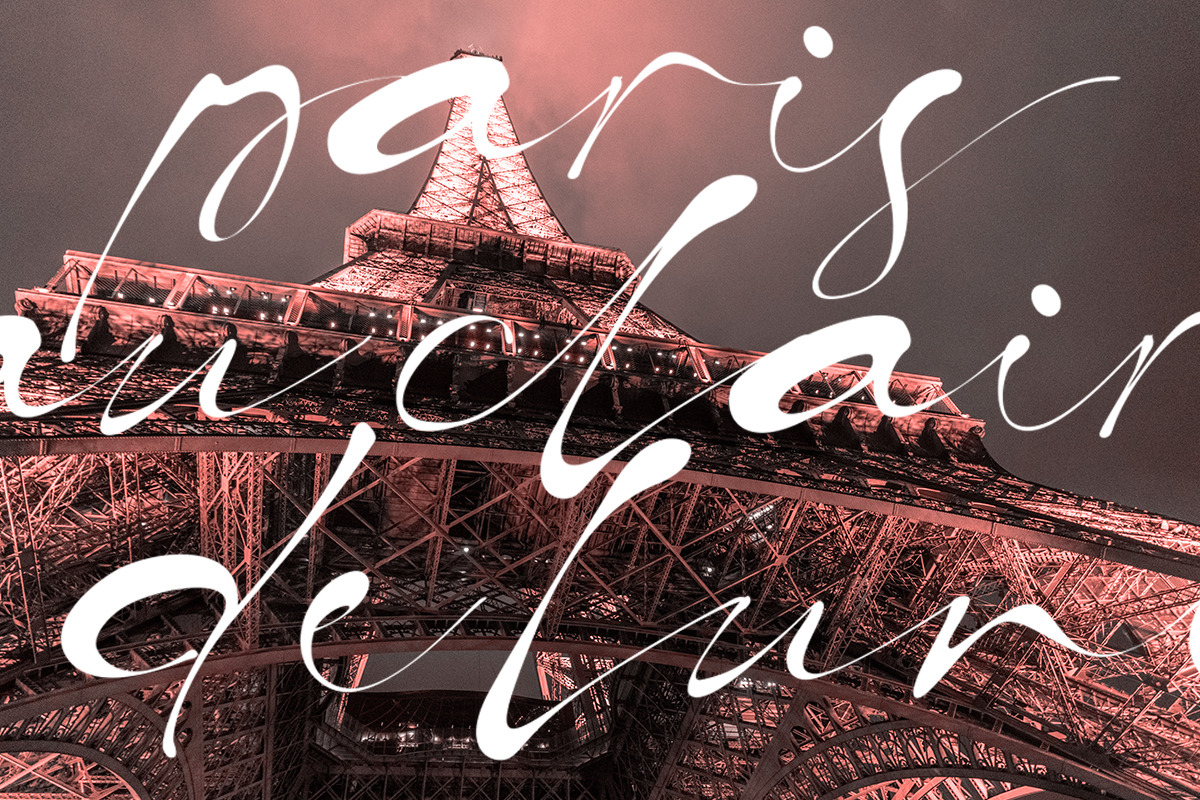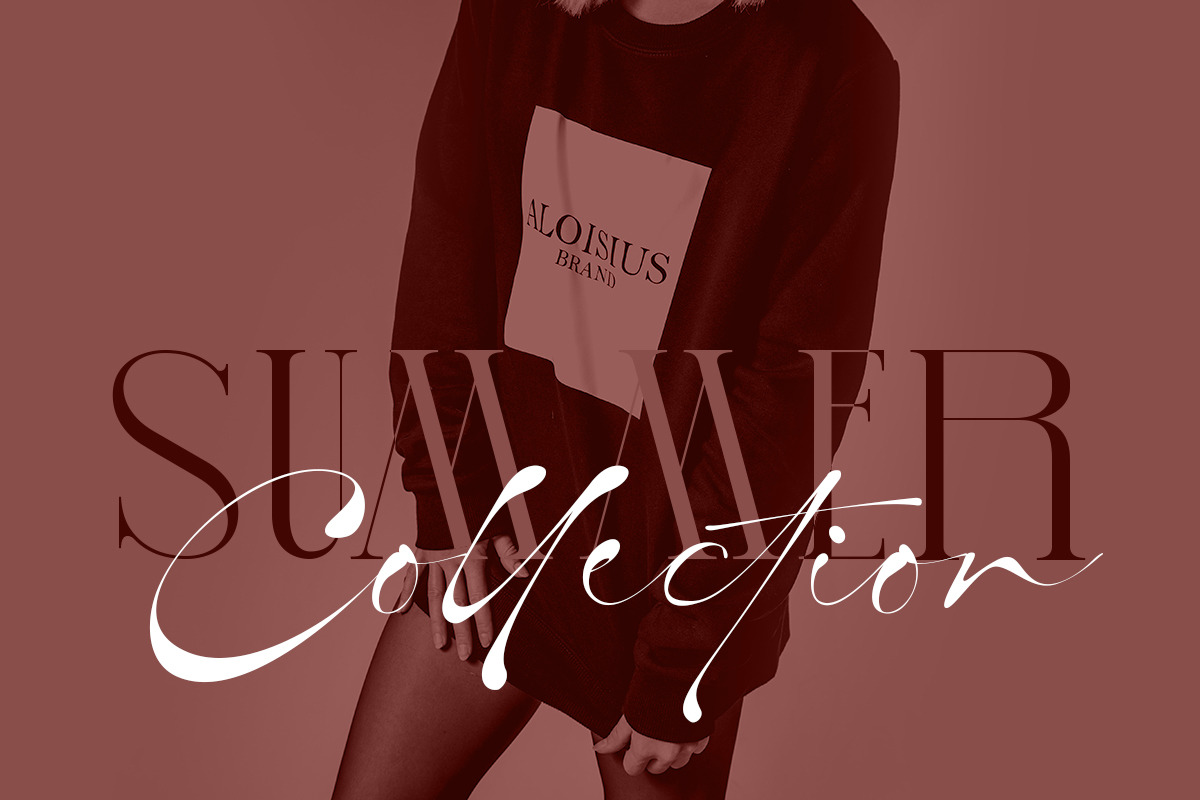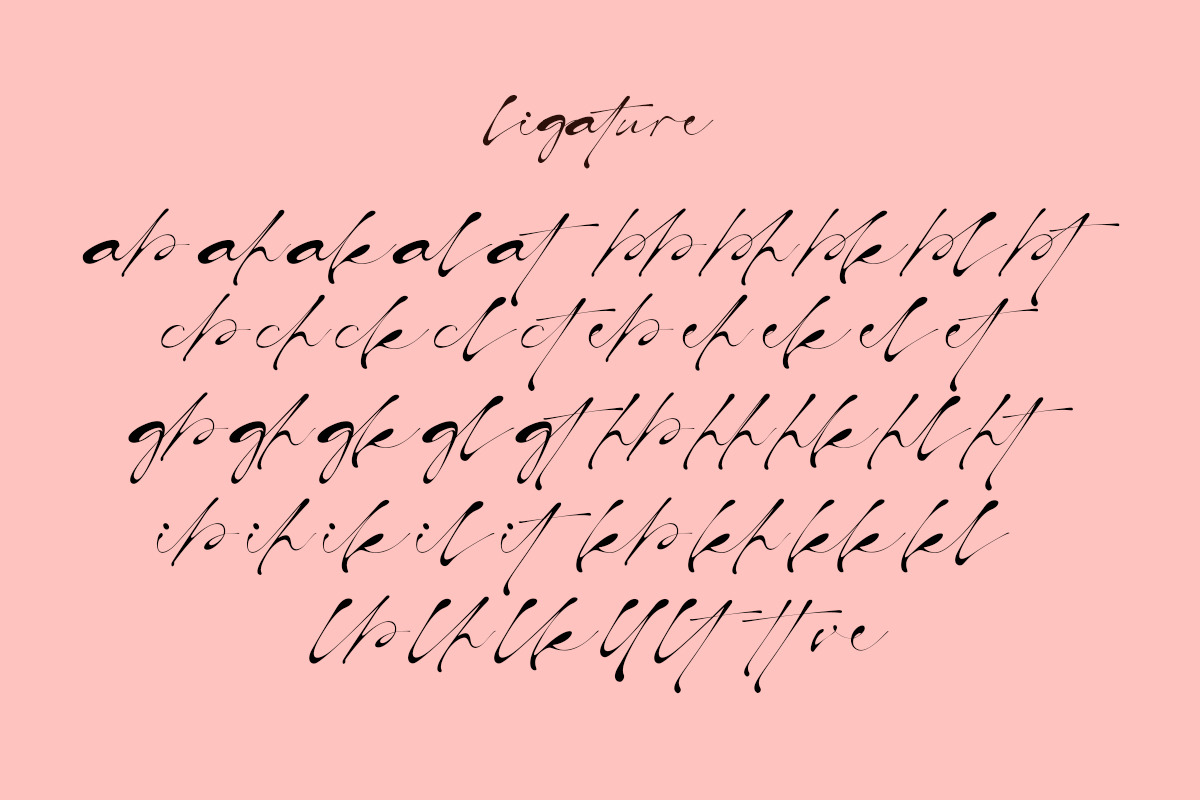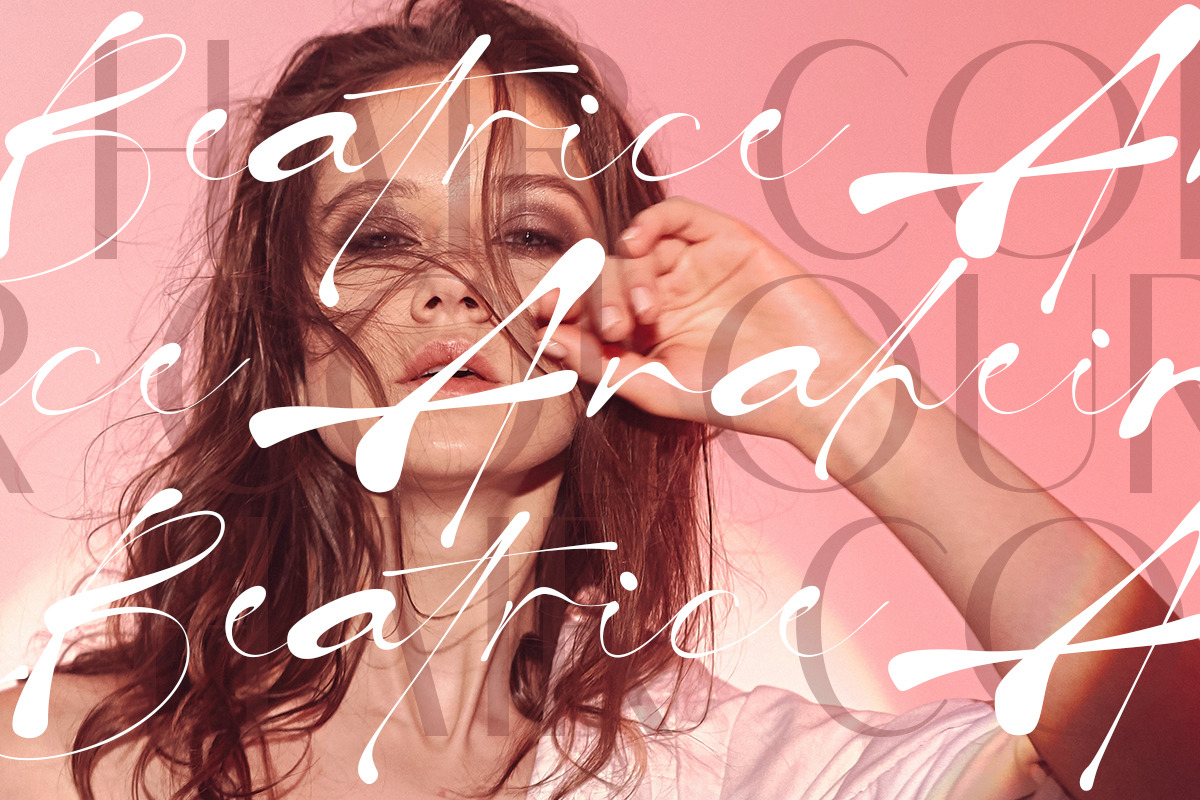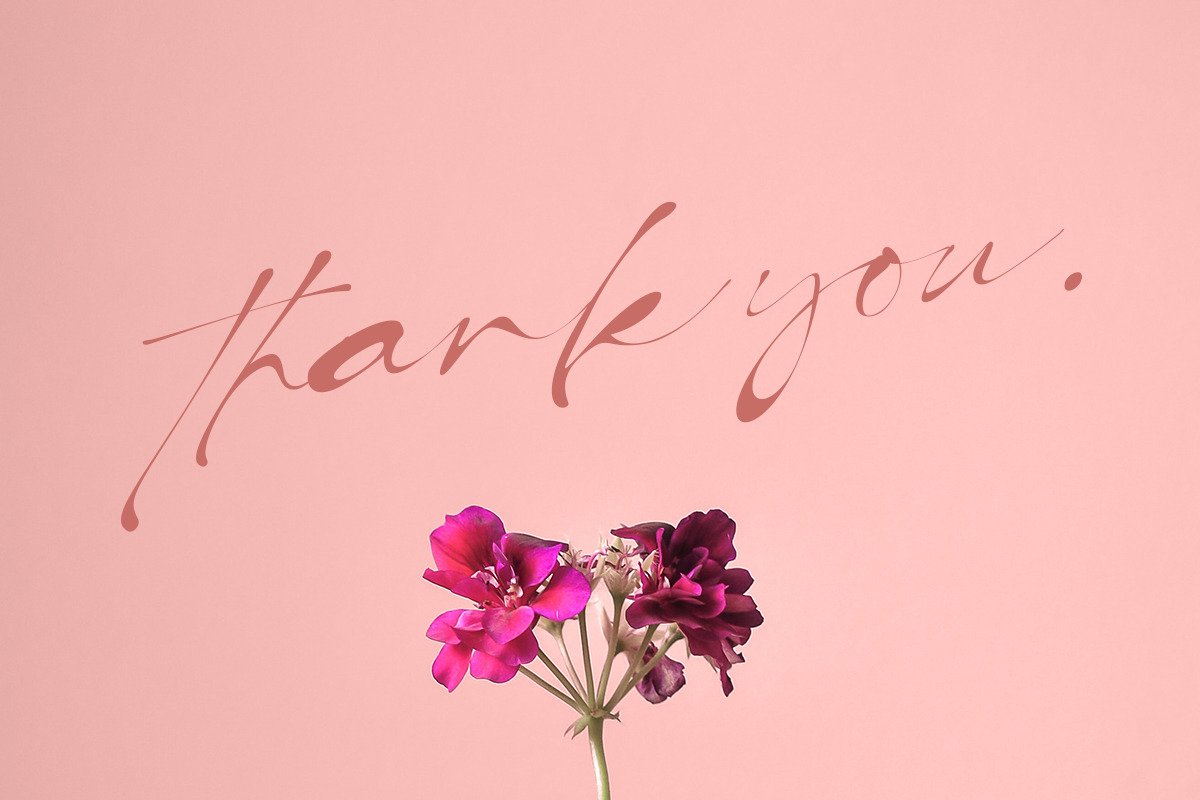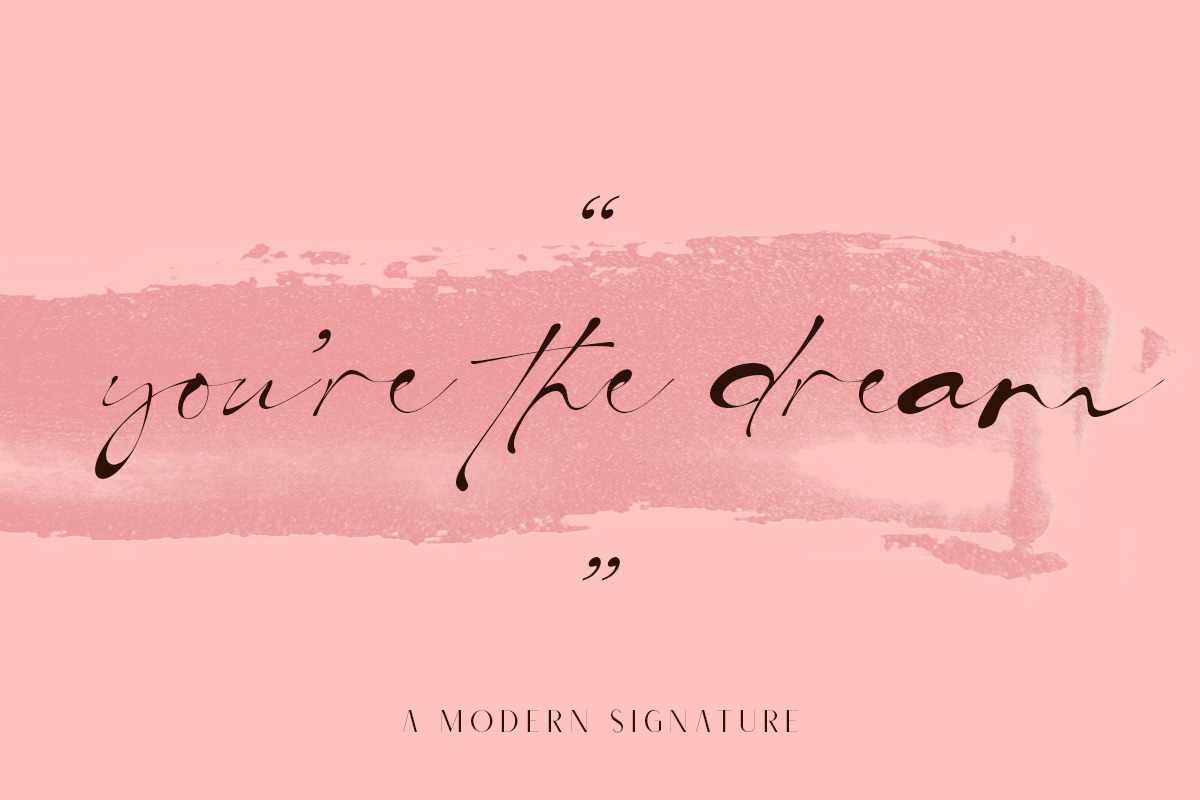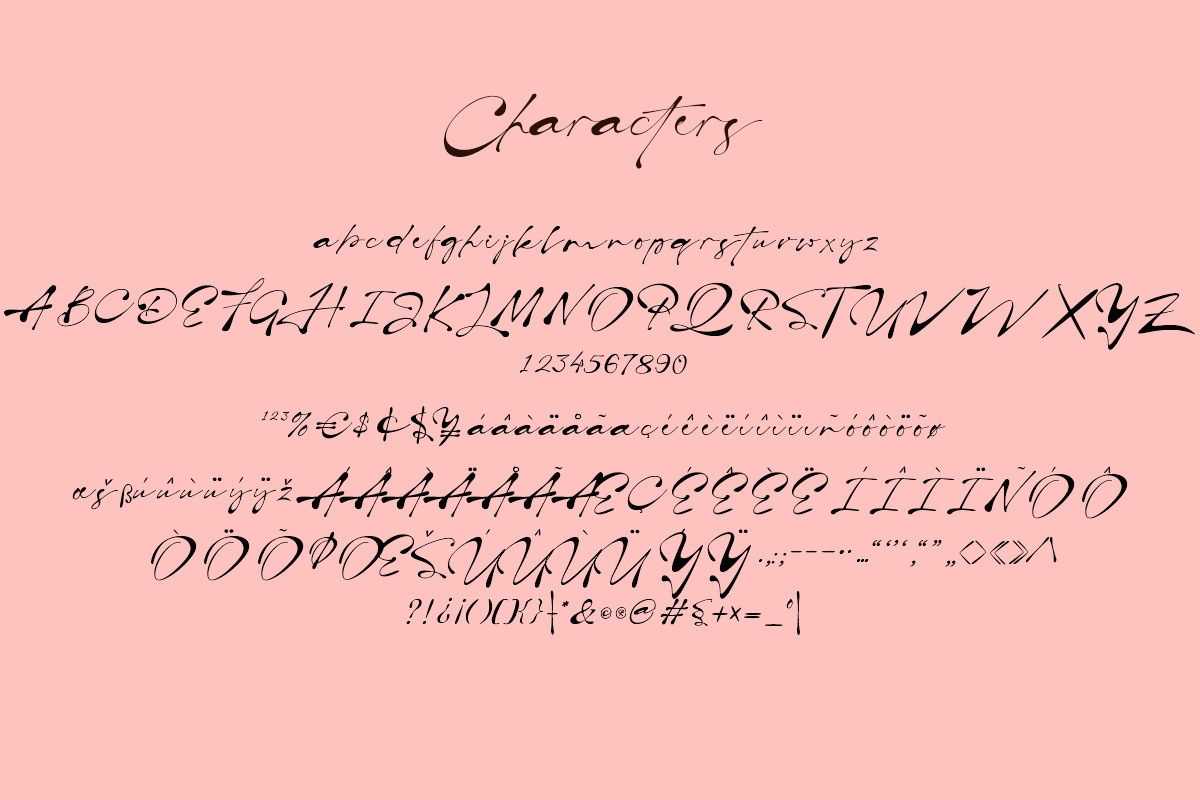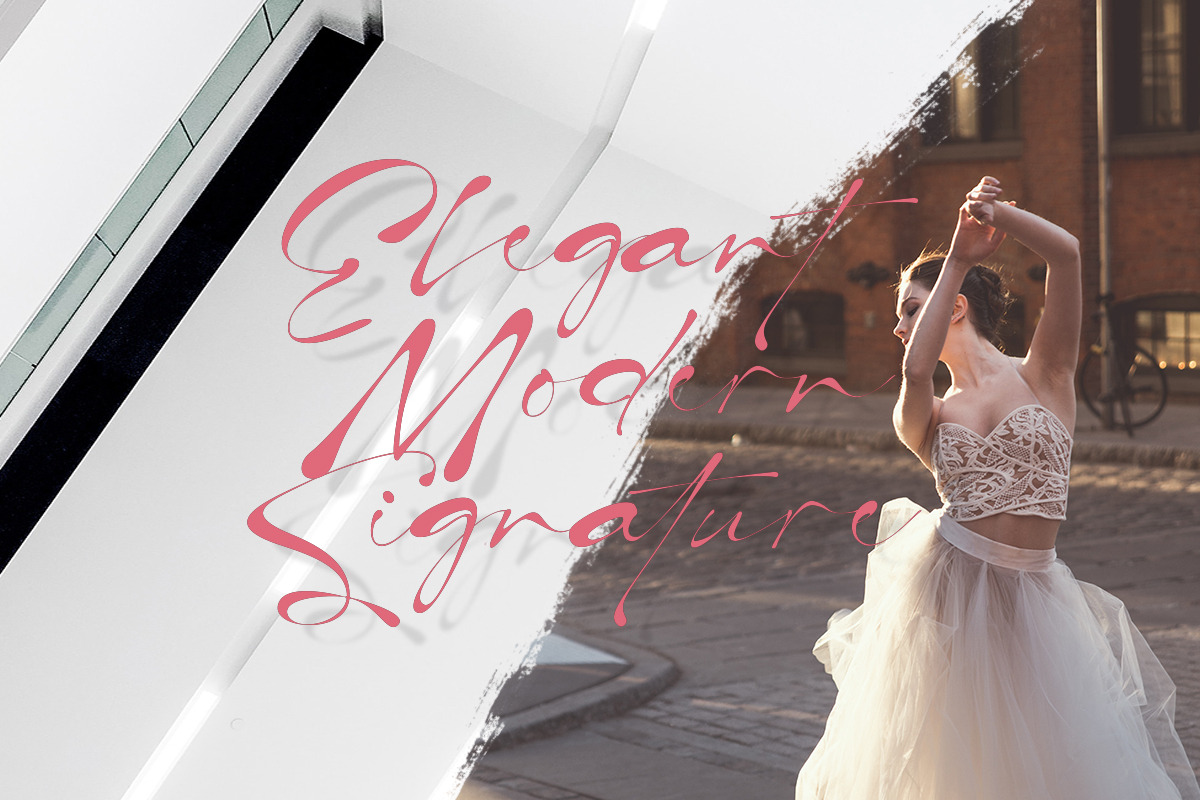
Caithlyn
Caithlyn is an Modern Signature font, perfect for logo design, branding, clothing design, posters, wedding invitations and so much more! Include Ligature 50+.